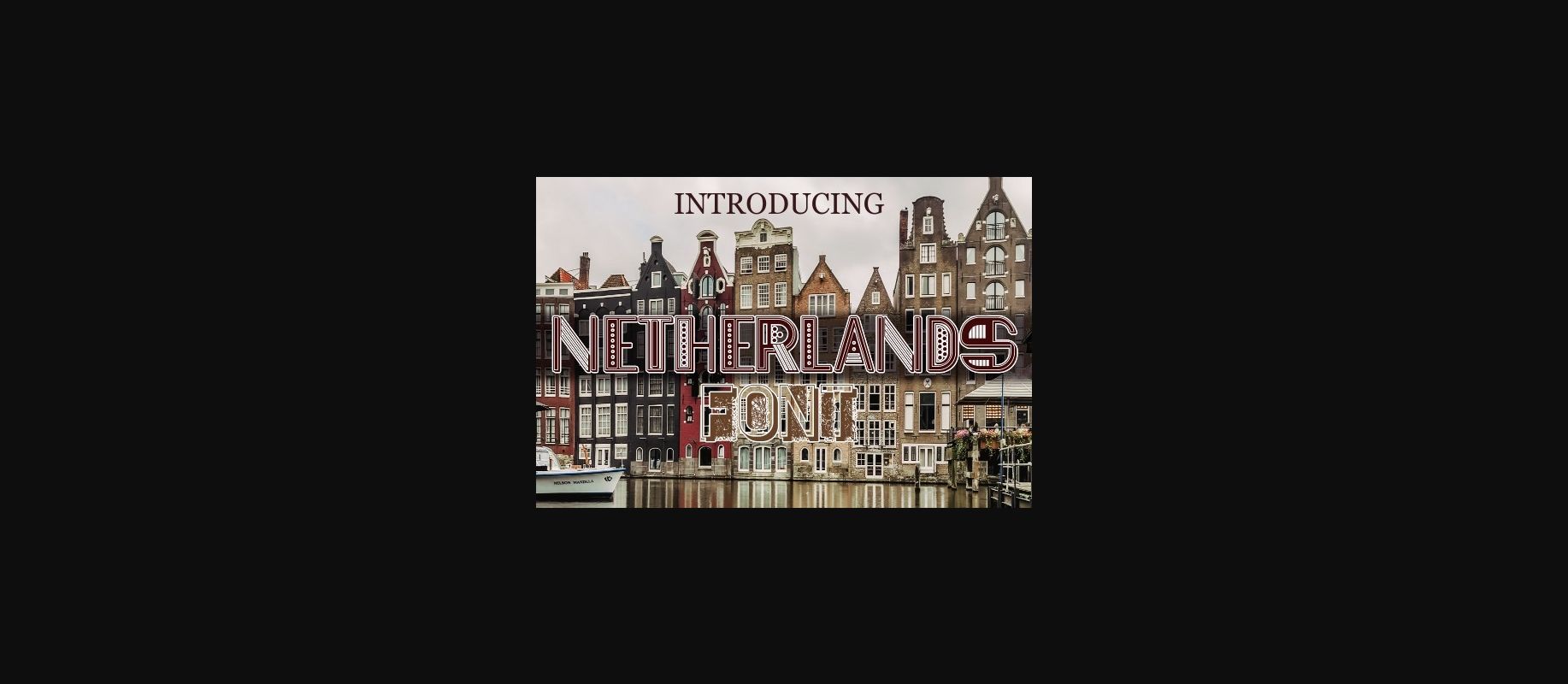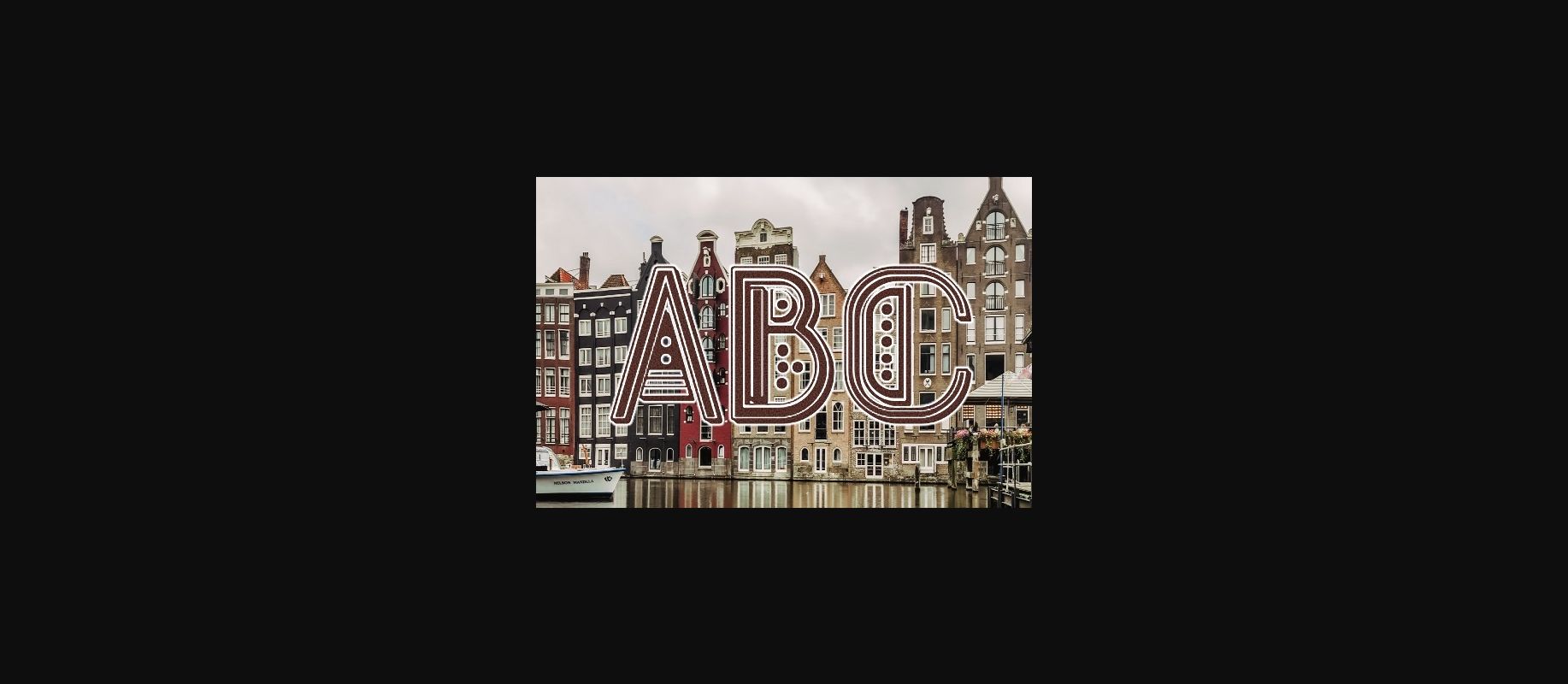
Netherlands is a cool and city-like decorative font that will truly inspire your work. Use this font for your designs and explore its endless possibilities.